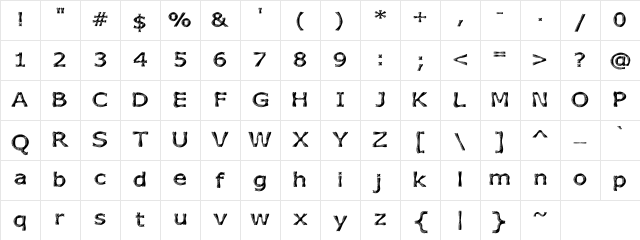
Heavy Texture Regular Free Font
Heavy Texture Regular
Heavy Texture Family
Complete Heavy Texture Regular glyph index. Displaying only characters natively supported by Heavy Texture Regular font.
Design Context for Heavy Texture
Heavy Texture embraces imperfection - its rough, textured character adds raw authenticity to designs that want to feel lived-in and unconventional.
Pro Tip: Use Heavy Texture at larger sizes where the texture and irregularity of each letterform can be clearly seen - it loses its character at small sizes.